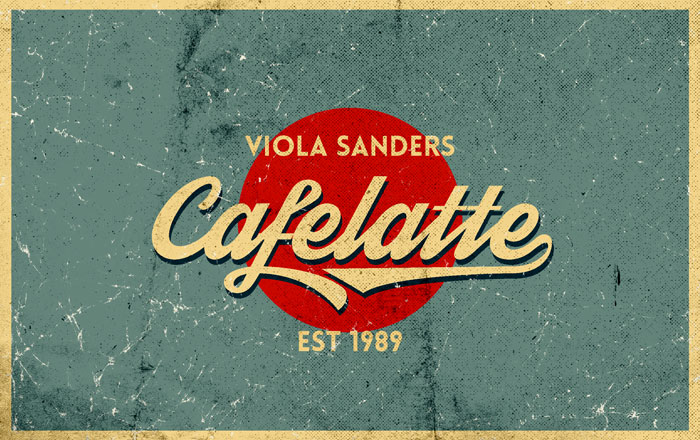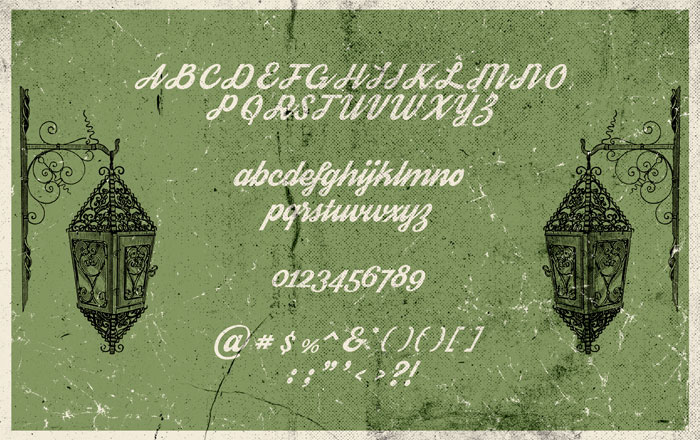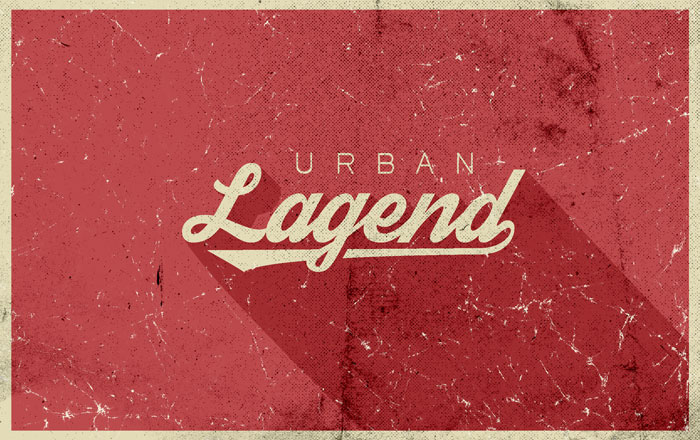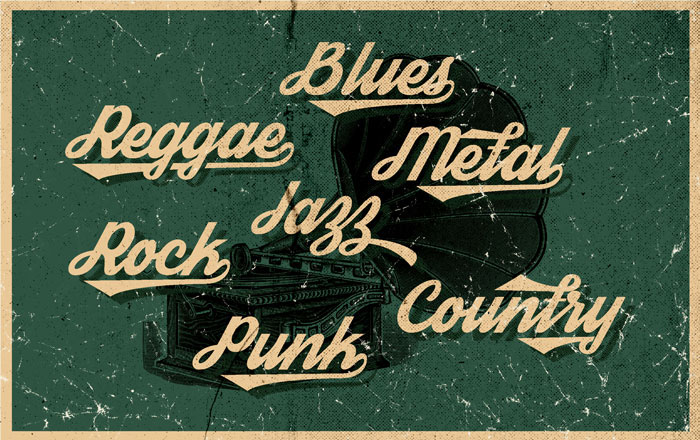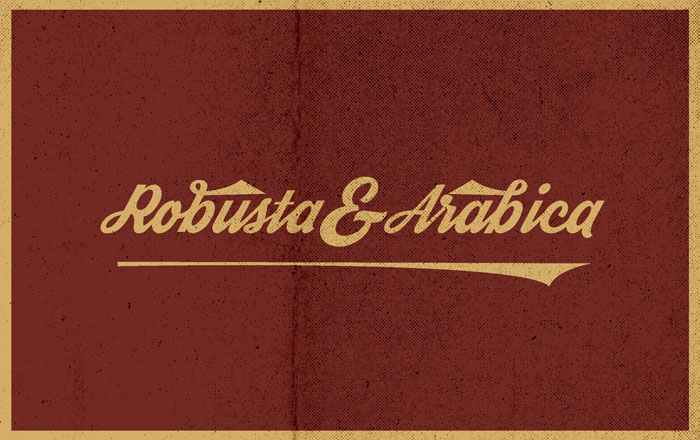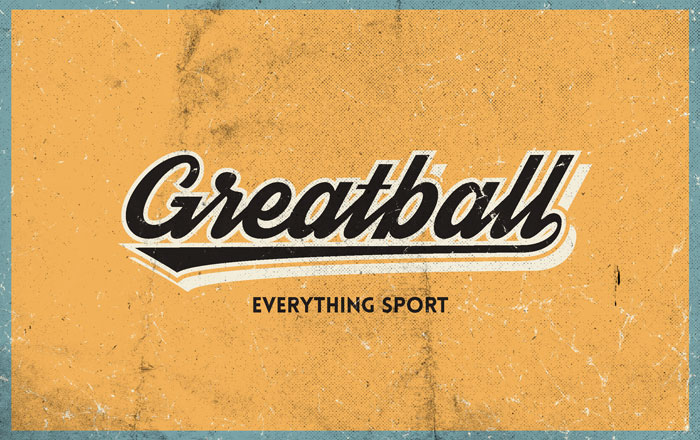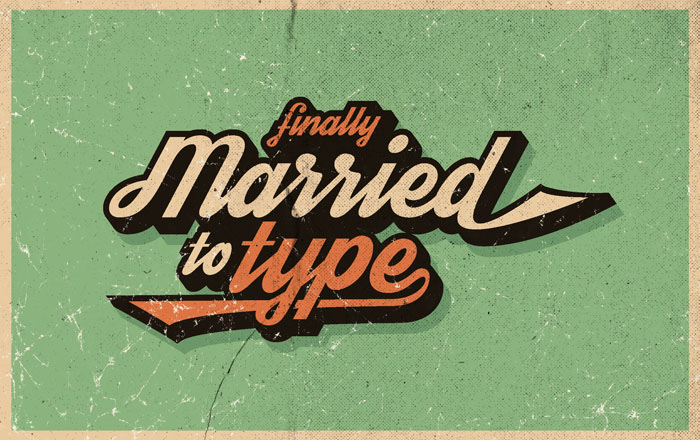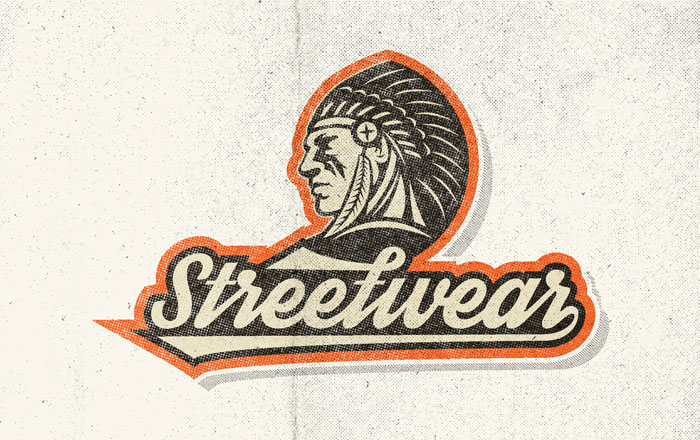
Streetwear Font is stylish retro typeface designed by Artimasa Studio. It’s suitable for logos, posters, branding, packaging and t-shirt design. You can access Streetwear’s alternate characters by using OpenType savvy programs such as Adobe Illustrator and InDesign.